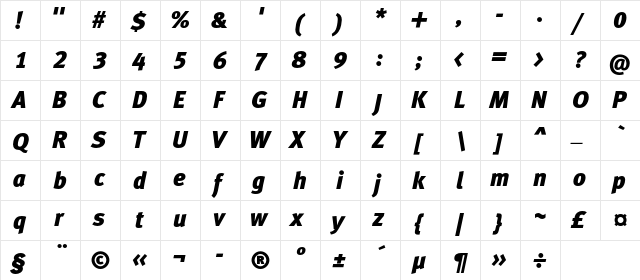
MetaBlackLFC Italic
Design Context for MetaBlackLFC Typeface
MetaBlackLFC takes a measured approach to typography — its balanced proportions and neutral character make it a reliable workhorse for both digital and print work. The slanted form adds forward momentum and visual energy.
Pro Tip: Use MetaBlackLFC for emphasis, pull quotes, and subheadings where its slanted energy can add rhythm to the layout.